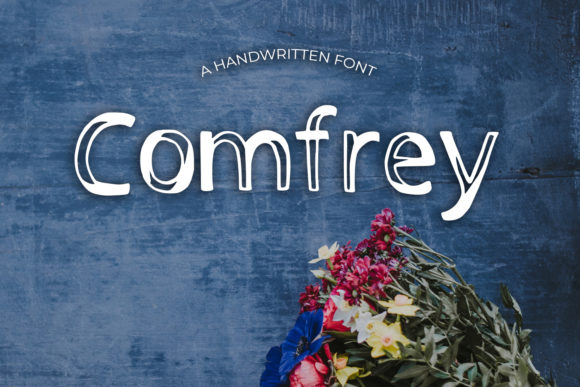
Dive into the world of captivating visuals with Comfrey Font, the ultimate display font designed to elevate your creative projects to new heights. Crafted with precision and artistry, Comfrey Font is a masterpiece that exudes charm and sophistication.
Unleash your creativity with Comfrey Font, the perfect choice for captivating headlines, eye-catching logos, and stunning posters. Its bold and confident strokes command attention, while its clean and modern lines ensure readability and impact.
Make a statement with Comfrey Font and transform your designs into unforgettable experiences. Its versatility knows no bounds, seamlessly adapting to a wide range of projects, from digital to print. Let Comfrey Font be your ally in creating designs that leave a lasting impression.
Comfrey Font is more than just a font; it's a gateway to a world of endless possibilities. Its elegant curves and sharp angles dance together in perfect harmony, adding a touch of sophistication and intrigue to your creations.
With Comfrey Font, you'll unlock a new level of design excellence. Its carefully crafted characters exude a sense of timeless beauty, while its contemporary style keeps your designs relevant and modern.
Don't settle for ordinary fonts that blend into the background. Embrace the power of Comfrey Font and watch as your designs take center stage. Its bold presence and captivating details will leave your audience spellbound.